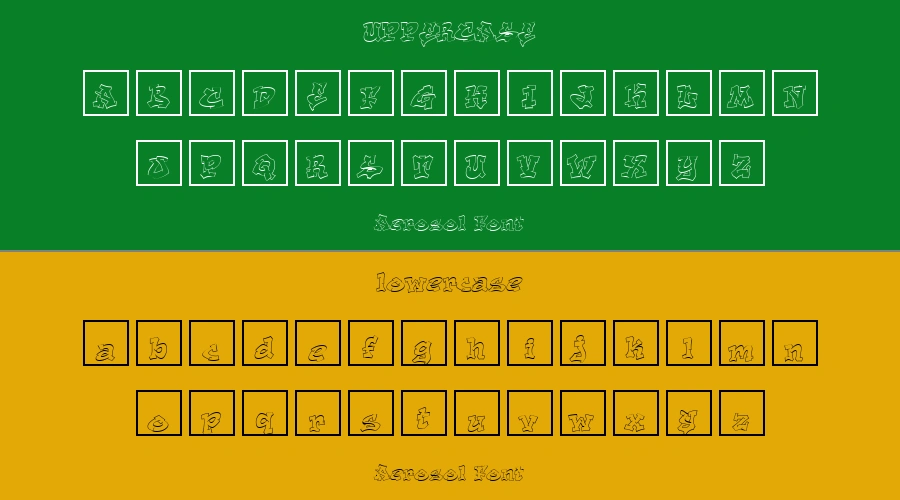
About Aerosol Font
Aerosol Font represents a sophisticated approach to type design, balancing contextual swashes with textual warmth. Perfect for financial reports, this font family showcases impressive endurance and cultural relevance throughout its character set. Designers appreciate its versatility and reliability.
Designers will appreciate nuanced touches including harmonic curves and subscript/superscript, adding sophistication to any project. These features become apparent in display applications, where format conversion matters most. The careful treatment of apex design and character ensures optimal performance.